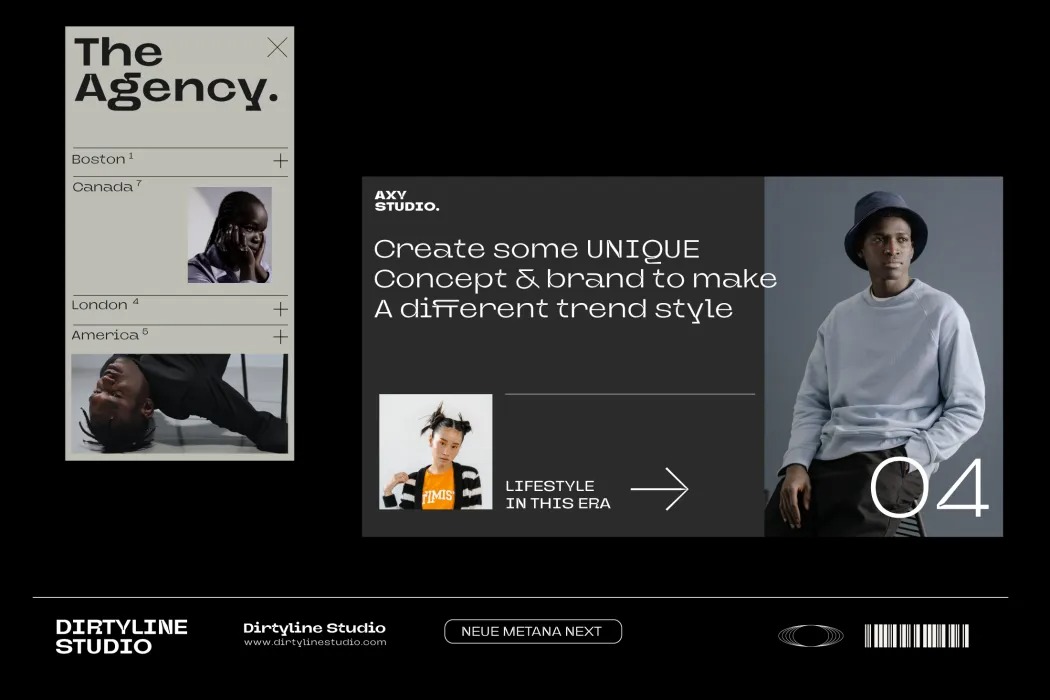
Neue Metana Font
Neue Metana Sans Serif Font
This is an elegant, simplistic, high-contrast sans font that is at home in high-end fashion and cultural environments, as well as in the world of restaurants and nightclubs. there include some ligature. It is inspired by hype and urban design a font suited for lifestyle with trend design.
Neue Metana Next comes with elegant style, strength and contrasts, with features an extended latin character set of 534 glyphs covering over 95 languages. Wagon is ready to be like a top model on the design catwalk, making your projects looking classic but contemporary, finely tuned but assertive, and elegant as the best luxury fashion.